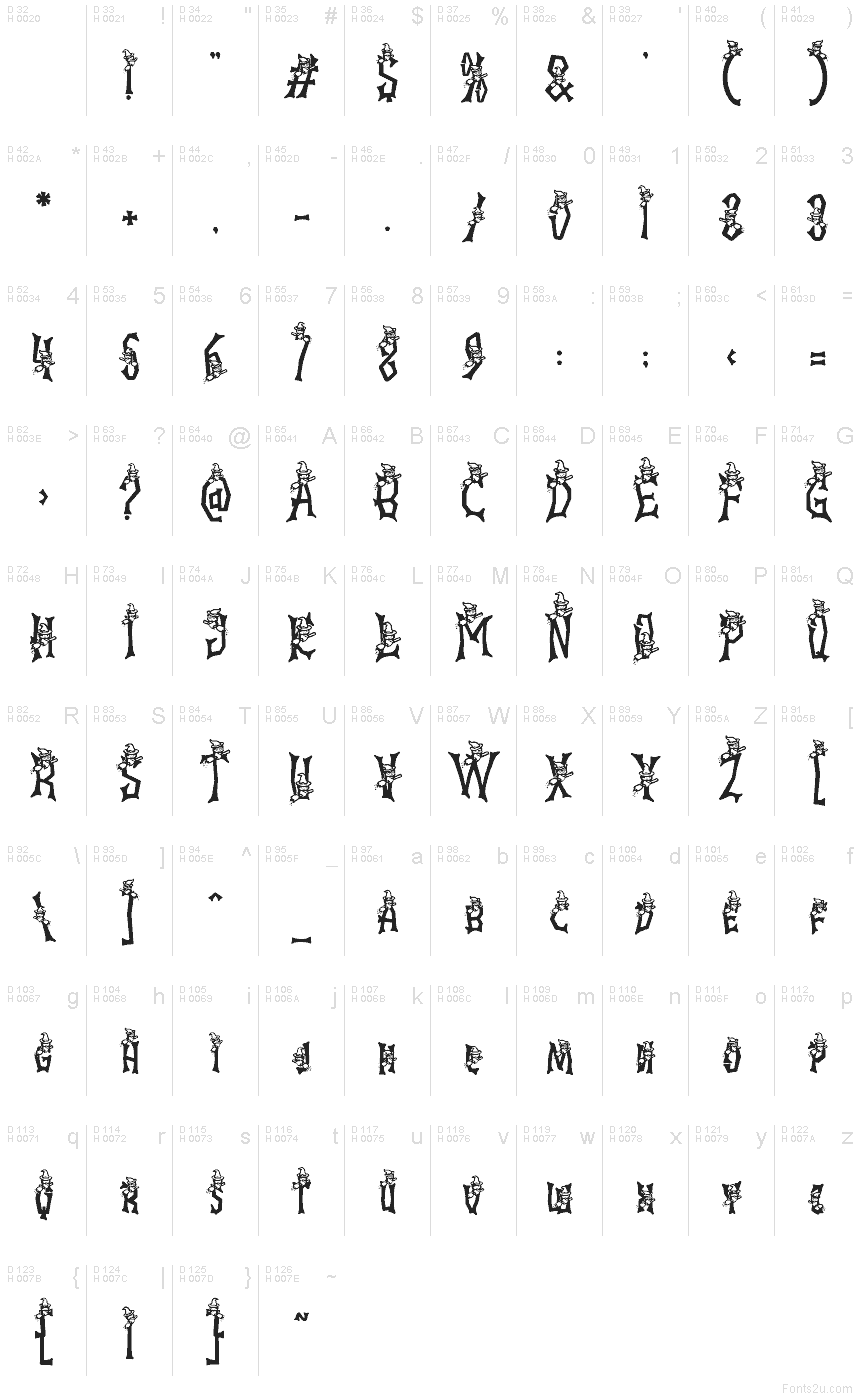
Ghostly Guffaws Witch
Ghostly Guffaws Witch font by PutraCetol Studio is a free Halloween display font from the Ghostly Guffaws family. Its defining trick is delightful: crooked, inky letters with little witches perched along the tops, like silhouettes cackling on a fence. The strokes feel scratchy and hand-drawn, giving headlines a campy, moonlit wobble that reads clearly while keeping the spooky fun front and center.
Using Ghostly Guffaws Witch, you can conjure party invitations, haunted-house posters, trick-or-treat bag art, classroom flyers, stickers, and punchy social promos. It shines at large sizes where the tiny witch details pop. Pair this free font with a clean geometric sans for body copy, and let the headline do the broomstick theatrics.